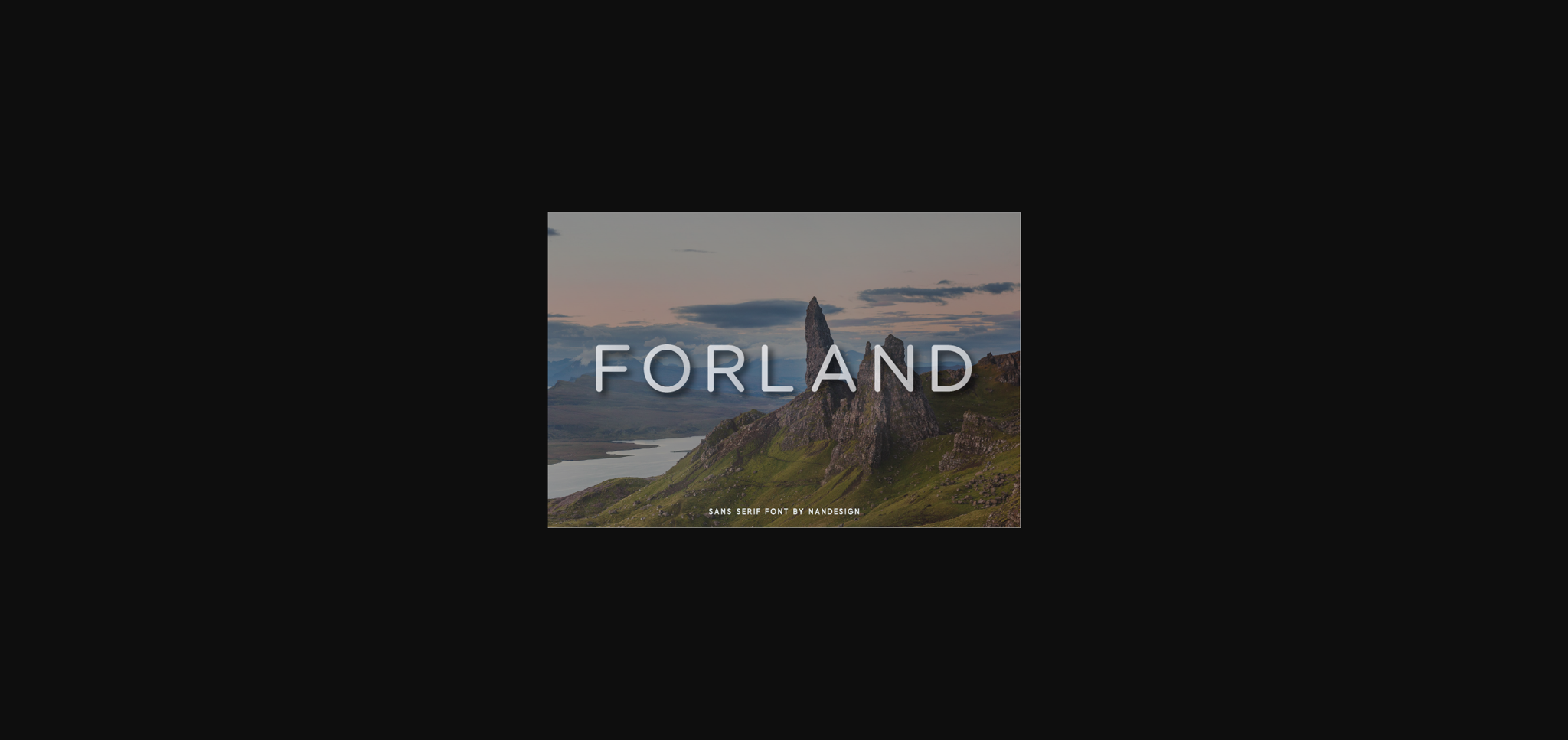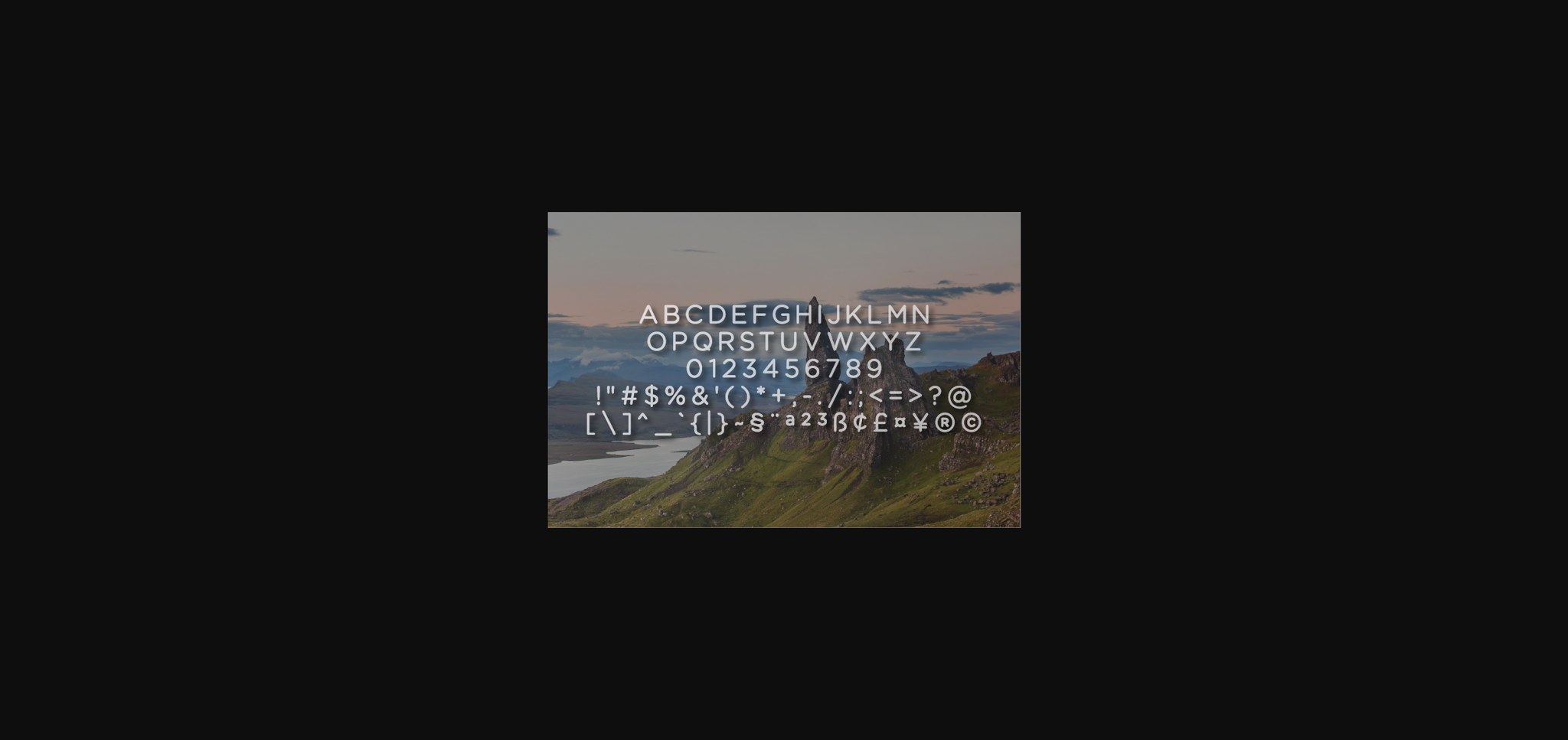
About Forland Font
Forland is a beautiful, simple, easy to match sans serif font. Add it to your library of favorite fonts and use it whenever you want a neat yet incredibly versatile style!